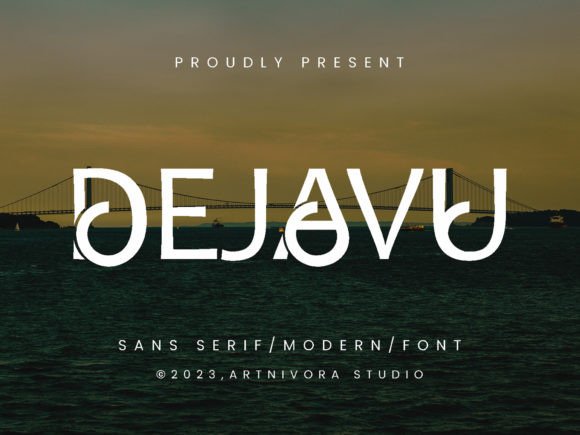
Introducing Dejavu, the font that breathes life into your designs, captivating your audience with its effortless charm and timeless appeal. Step into a world where words become art, and every letter dances with grace. Dejavu is not just a font; it's an experience that transforms the ordinary into the extraordinary.
With its clean lines and elegant curves, Dejavu exudes a classic sans serif beauty that stands the test of time. Its unassuming nature makes it a perfect choice for a wide range of design projects, from sleek logos and eye-catching headlines to captivating social media posts and engaging brochures. Dejavu seamlessly adapts to any context, enhancing your message with a touch of sophistication and timeless elegance.
Imagine your logo, the face of your brand, rendered in the Dejavu font. Its bold yet understated presence commands attention, leaving a lasting impression on your clients and customers. Dejavu elevates your designs, giving them an air of professionalism and credibility. It's the perfect choice for businesses looking to make a statement and leave a lasting legacy.
Dejavu is not just a font; it's a versatile toolkit that empowers you to create captivating designs that resonate with your audience. Whether you're crafting a visually stunning magazine spread, engaging social media posts, or brochures that leave a lasting impression, Dejavu effortlessly elevates your words, making them shine with newfound brilliance.
Unleash your creativity and dive into a world of endless possibilities with Dejavu. Its versatility knows no bounds, allowing you to experiment with different styles and themes, creating designs that are uniquely yours. Dejavu is the perfect companion for designers who dare to dream big and push the boundaries of creativity.
With Dejavu, you'll discover a font that seamlessly blends tradition and modernity, classicism and innovation. It's a font that speaks to the heart and resonates with the soul, leaving an indelible mark on your audience. Embrace the power of Dejavu and unlock a new era of design brilliance.